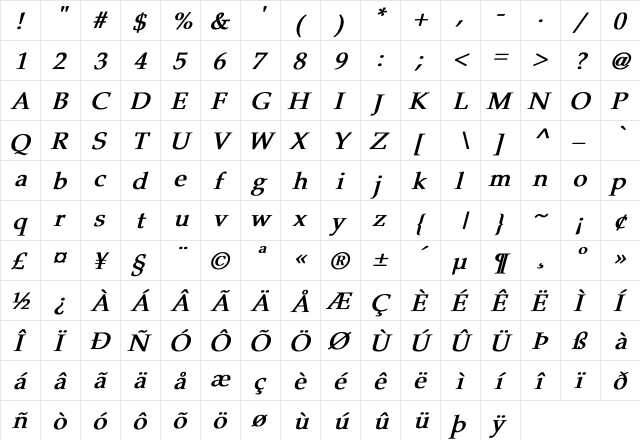
Pheasant Bold Italic
Design Context for Pheasant Typeface
Pheasant is a composed and adaptable typeface that performs quietly and consistently across a wide range of design contexts. Its italic angle brings a sense of urgency and motion to the letterforms. Its bold stroke weight gives it real presence on the page.
Pro Tip: Use Pheasant for emphasis, pull quotes, and subheadings where its slanted energy can add rhythm to the layout.